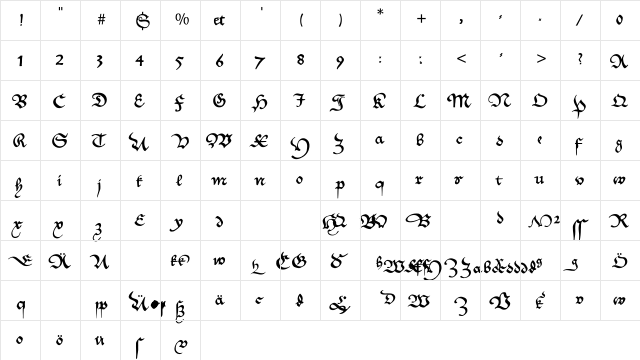
MKantzley Regular
Design Context for MKantzley Typeface
MKantzley is a composed and adaptable typeface that performs quietly and consistently across a wide range of design contexts.